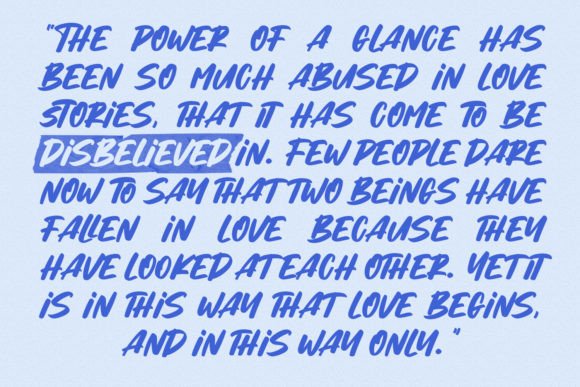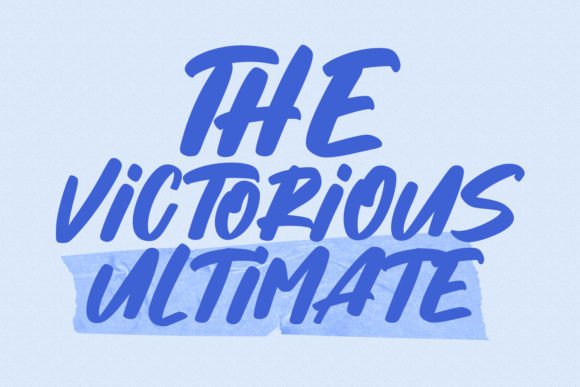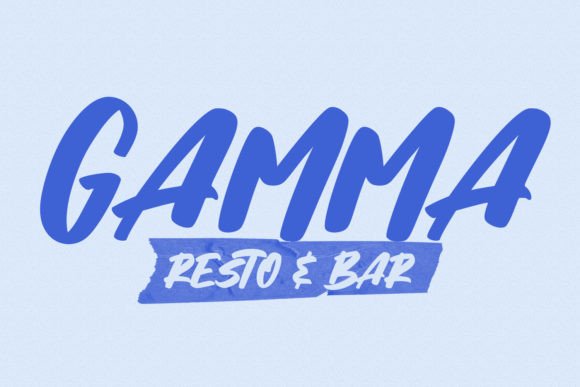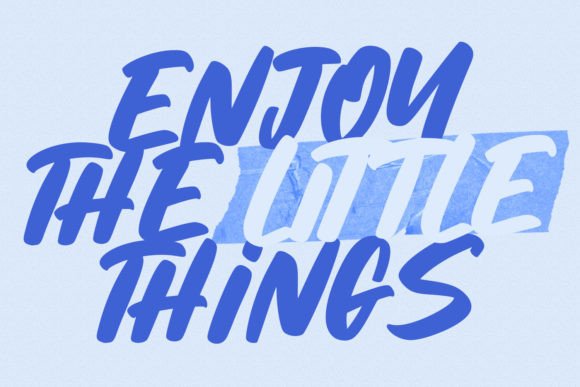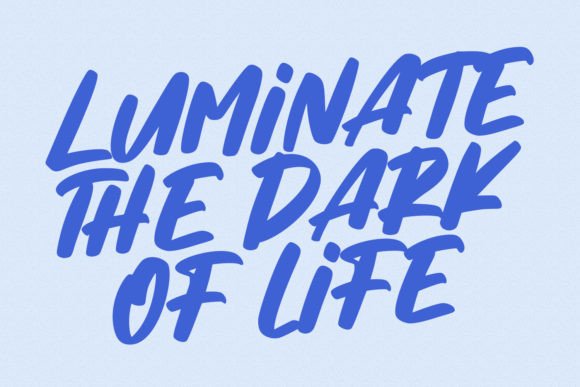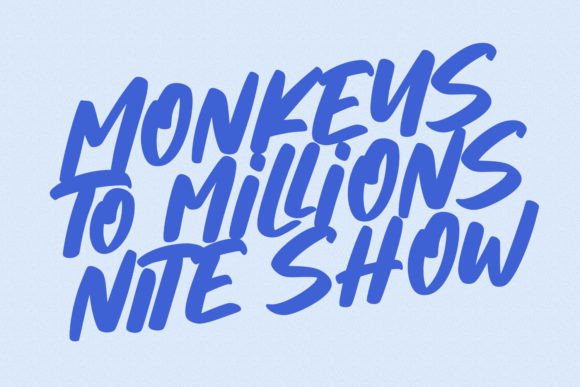
Introduction to Krinksly Font
Have you ever found yourself staring at a blank canvas, wondering what the perfect font could be to bring your creative project to life? For designers, this is a familiar struggle. But what if you stumbled upon a font that’s not only perfect but also quirky and fun? Enter the Krinksly Font, a high-quality, handwritten display font that’s sure to elevate any design.
This little gem is perfect for designers looking to add a touch of whimsy to their work. With its transparent background and crisp, high-quality design, the Krinksly Font is a versatile resource that can be used in a wide range of contexts, from digital design to print materials. And the best part? It’s available for free download, making it an accessible design resource for creatives of all levels.
Whether you’re working on a personal project or a professional design, the Krinksly Font is sure to bring a smile to your face and a touch of personality to your work. In this article, we’ll dive deeper into the world of the Krinksly Font and explore its many uses and benefits.
Key Features of Krinksly Font
- High-quality design resource for creative projects, featuring a unique, hand-drawn style.
- Perfect for designers looking for a high-quality, creative font to elevate their designs and stand out from the crowd.
- Unique characteristics include a distressed, vintage feel and a wide range of styles and weights to suit your design needs.
- Designed to be highly legible and readable, even at small font sizes, making it an ideal choice for designers working on a variety of creative projects.
Honest Review: Krinksly Font
I recently stumbled upon the Krinksly Font while searching for a unique design resource to elevate my creative project. The free download was a welcome surprise, and I was excited to put it to the test.
Here are some things that work well with the Krinksly Font: ✨
- Its playful, whimsical feel is perfect for adding a touch of personality to your designs.
- The high-quality vector graphics ensure that the font scales well across different resolutions.
- The transparent background option makes it easy to customize and integrate with your design.
However, I did encounter a few limitations: ⚠️
- The font might not be suitable for formal or professional designs due to its casual nature.
- The character set is limited, which may cause issues if you need to use it for extensive text-based content.
Overall, I’m impressed with the Krinksly Font. It’s a great addition to any designer’s toolkit, especially for creative projects that require a bit of flair. With a little creativity, you can achieve some amazing results with this versatile design resource.
Tips for Getting the Most Out of Krinksly Font
Use Krinksly Font to add a creative touch to your designs. Experiment with different font sizes, colors, and alignments to achieve the desired effect. You can also combine Krinksly Font with other design elements to create a unique look.
Krinksly Font is a versatile design resource that can be used in a variety of creative projects, including logos, posters, and social media graphics. Its high-quality design and transparent background make it an ideal choice for designers who want to add a professional touch to their work.